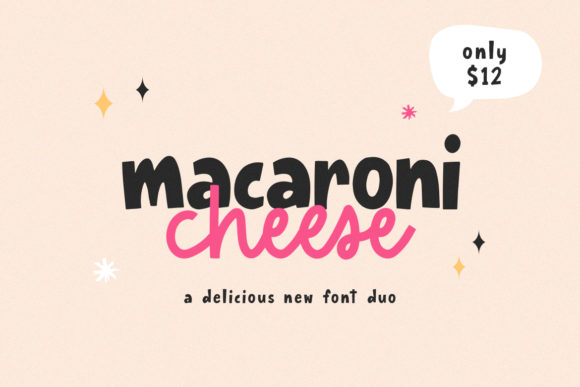
Macaroni Cheese Font
Macaroni Cheese Font is perfect for comfort food restaurant branding, family diner menus, children's meal packaging, cozy cafe signage, homestyle cooking blogs, nostalgic kitchen decor, casual dining materials, and warm family event graphics.
This font is exciting because it radiates cozy warmth with playful letterforms that capture the comforting satisfaction and childhood nostalgia of America's most beloved comfort food dish. Macaroni Cheese Font brings homestyle charm to designs through its rounded curves and friendly styling that feels like typography crafted from golden cheese and shaped by loving family kitchens. The font's comforting character makes it perfect for food brands and want to communicate warmth, satisfaction, and the kind of nostalgic comfort that brings families together around dinner tables.
The Macaroni Cheese Font family includes Regular, Bold, Light, Cheesy, Comfort, and Family variants, each designed to capture different aspects of comfort food appeal while maintaining the font's characteristic cozy appeal and homestyle authenticity. The character set features playful details that enhance the font's connection to comfort food traditions and family dining.
Whether you're creating branding for comfort food businesses, designing materials for family events, or developing content that needs to project homestyle warmth, Macaroni Cheese Font Free Download delivers the comforting typography that makes mouths water and hearts feel at home with every delicious bite of visual satisfaction. This remarkable typeface transforms text into invitations to comfort that resonate with the same satisfying warmth and nostalgic joy found in grandmother's kitchen where every meal is made with love, ensuring your message communicates the genuine comfort and family warmth that turns simple ingredients into cherished memories and transforms ordinary meals into extraordinary moments of togetherness and satisfaction.